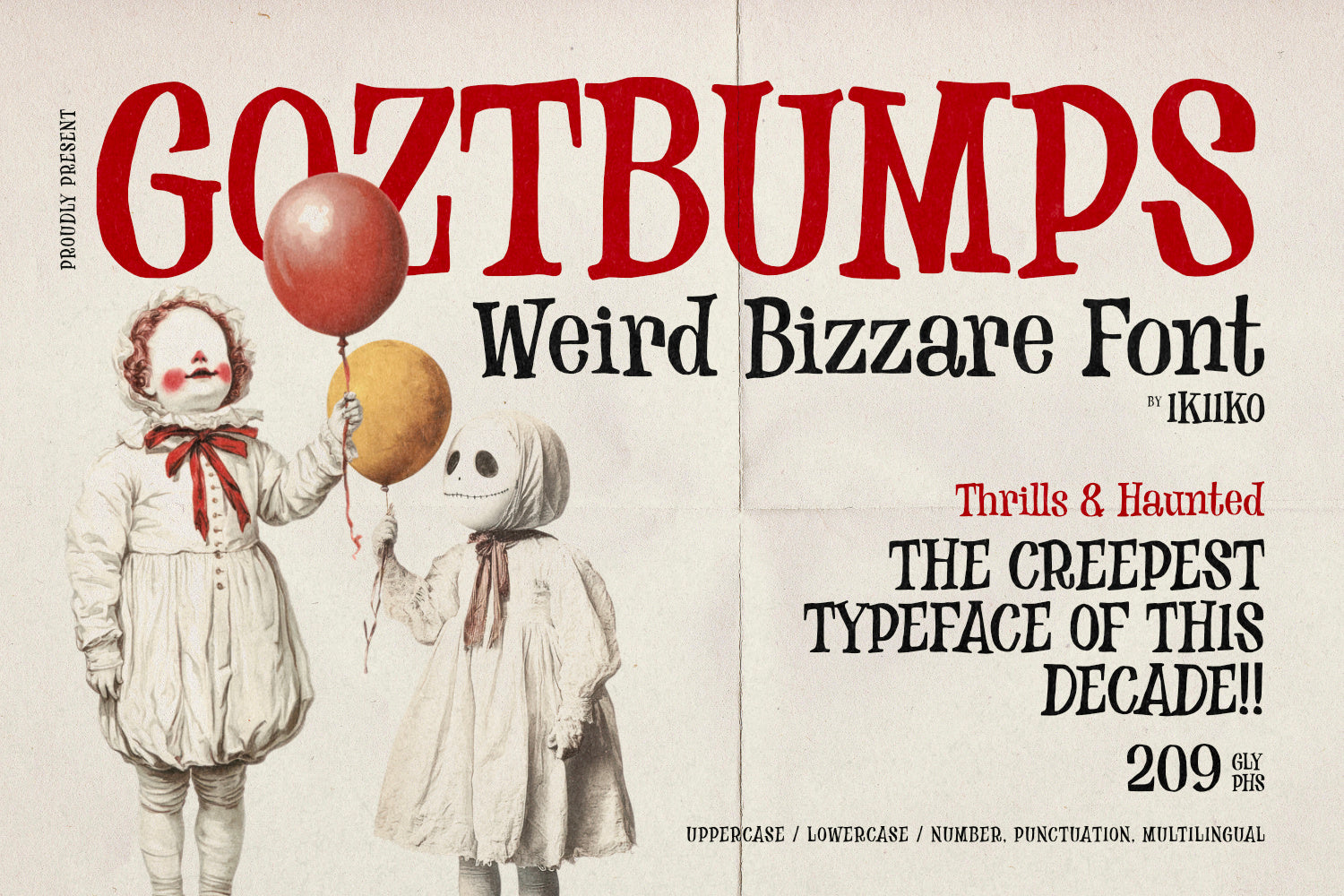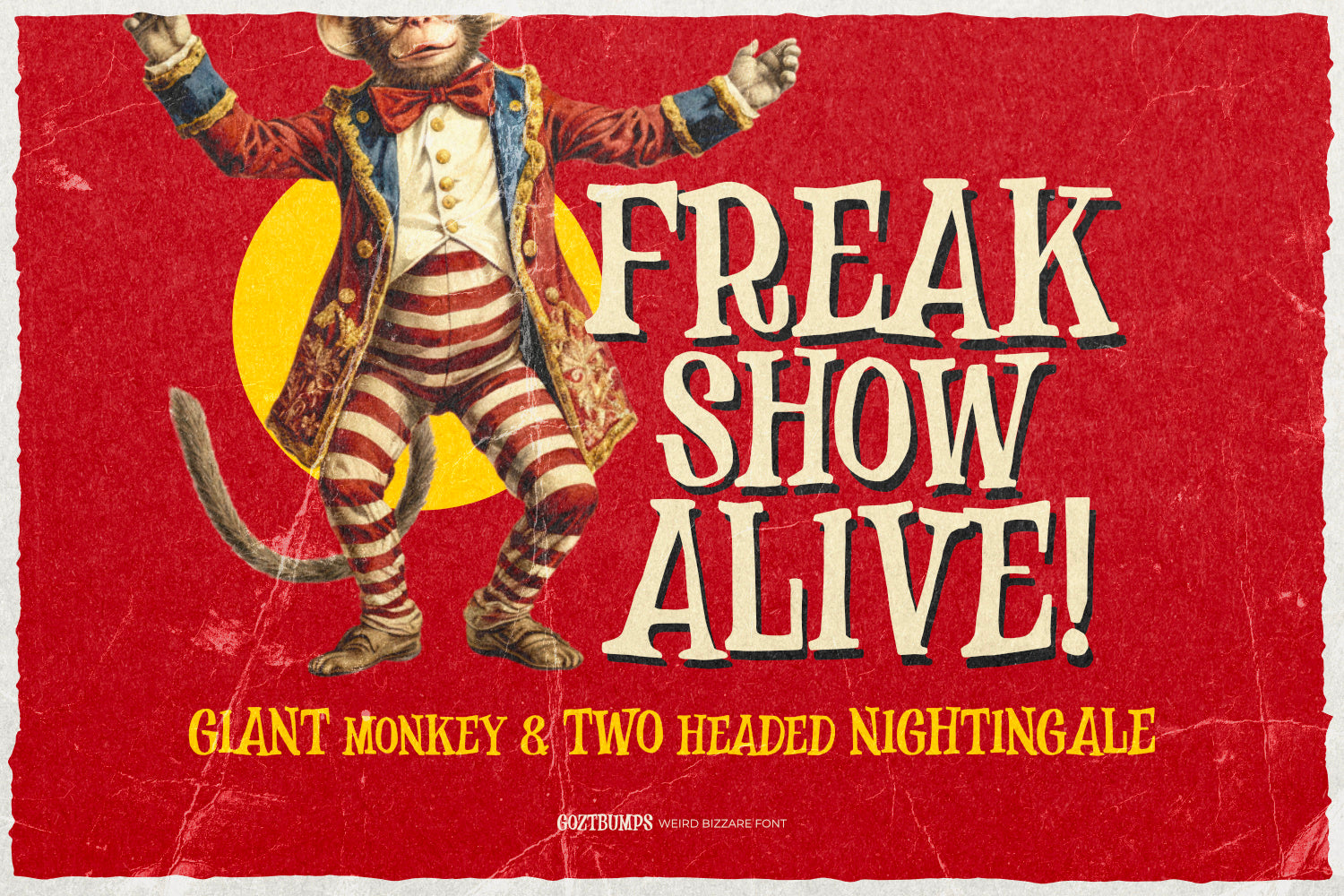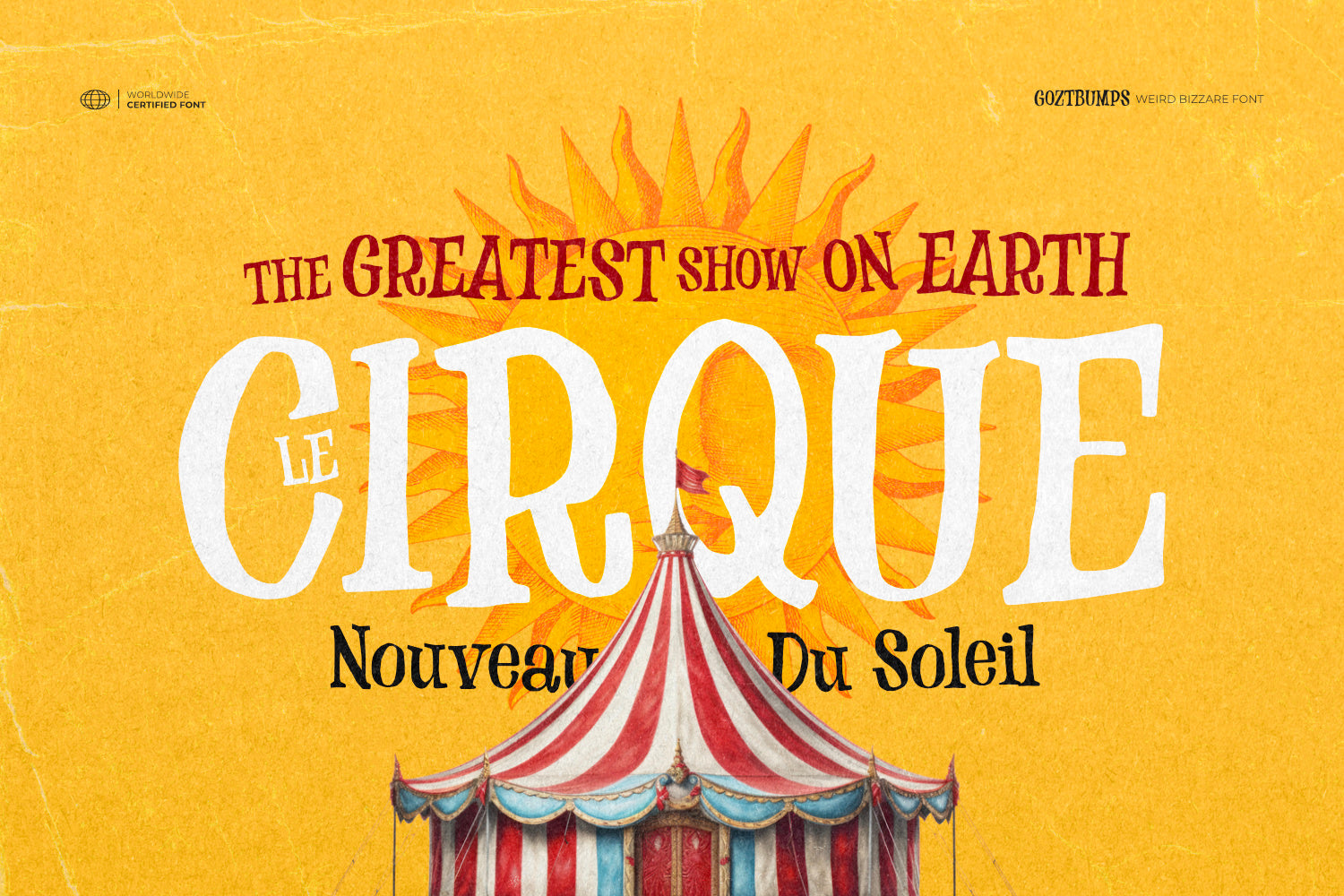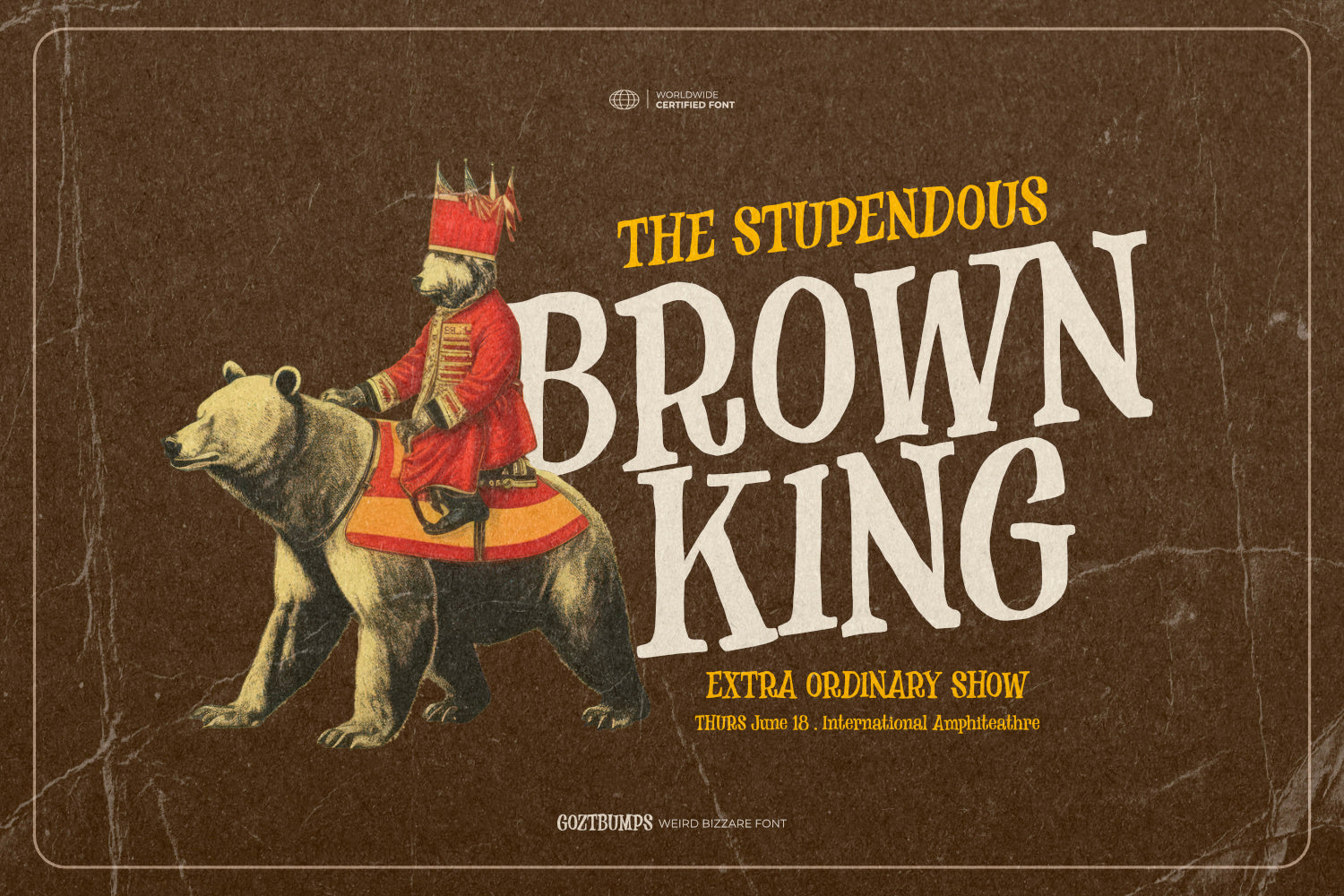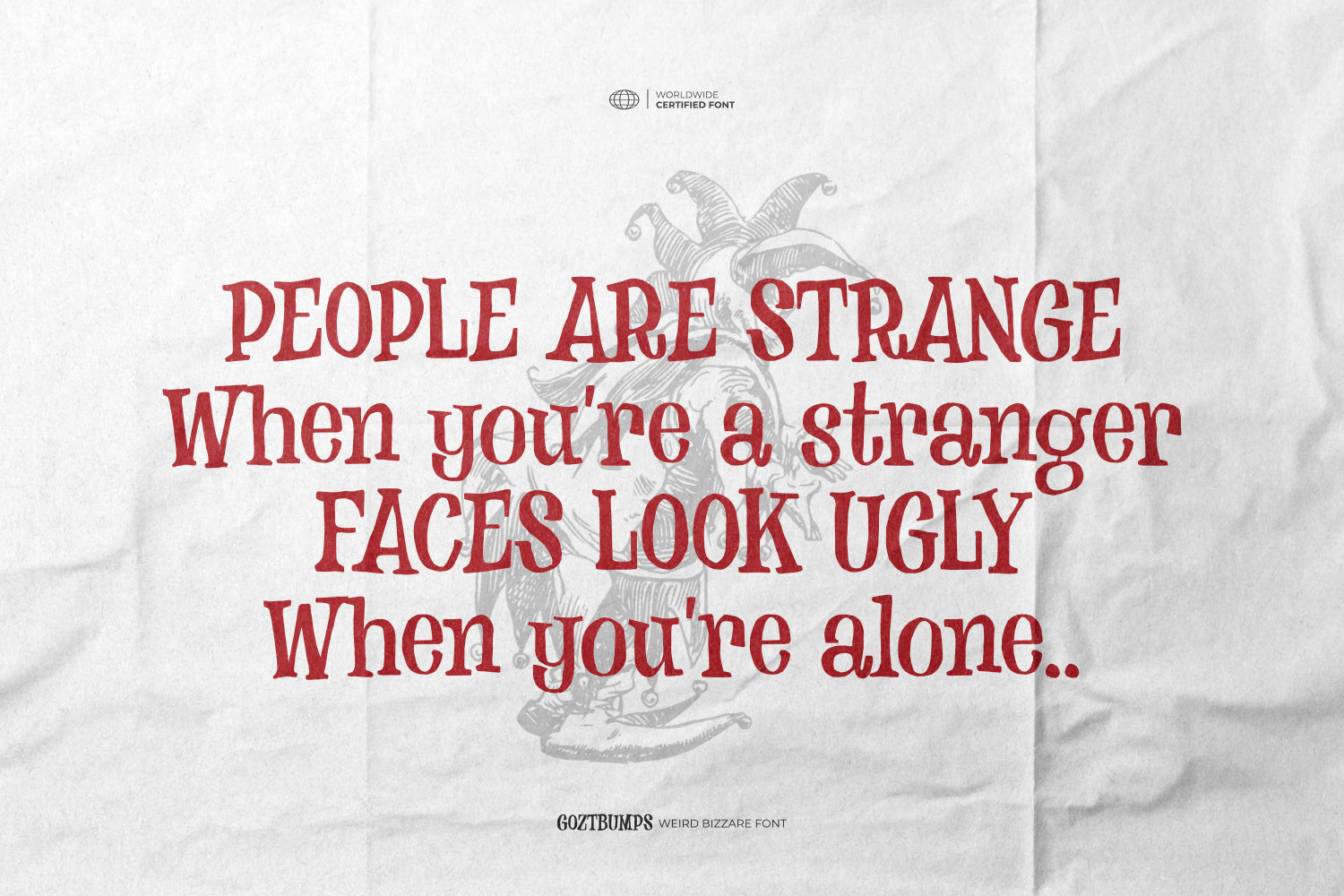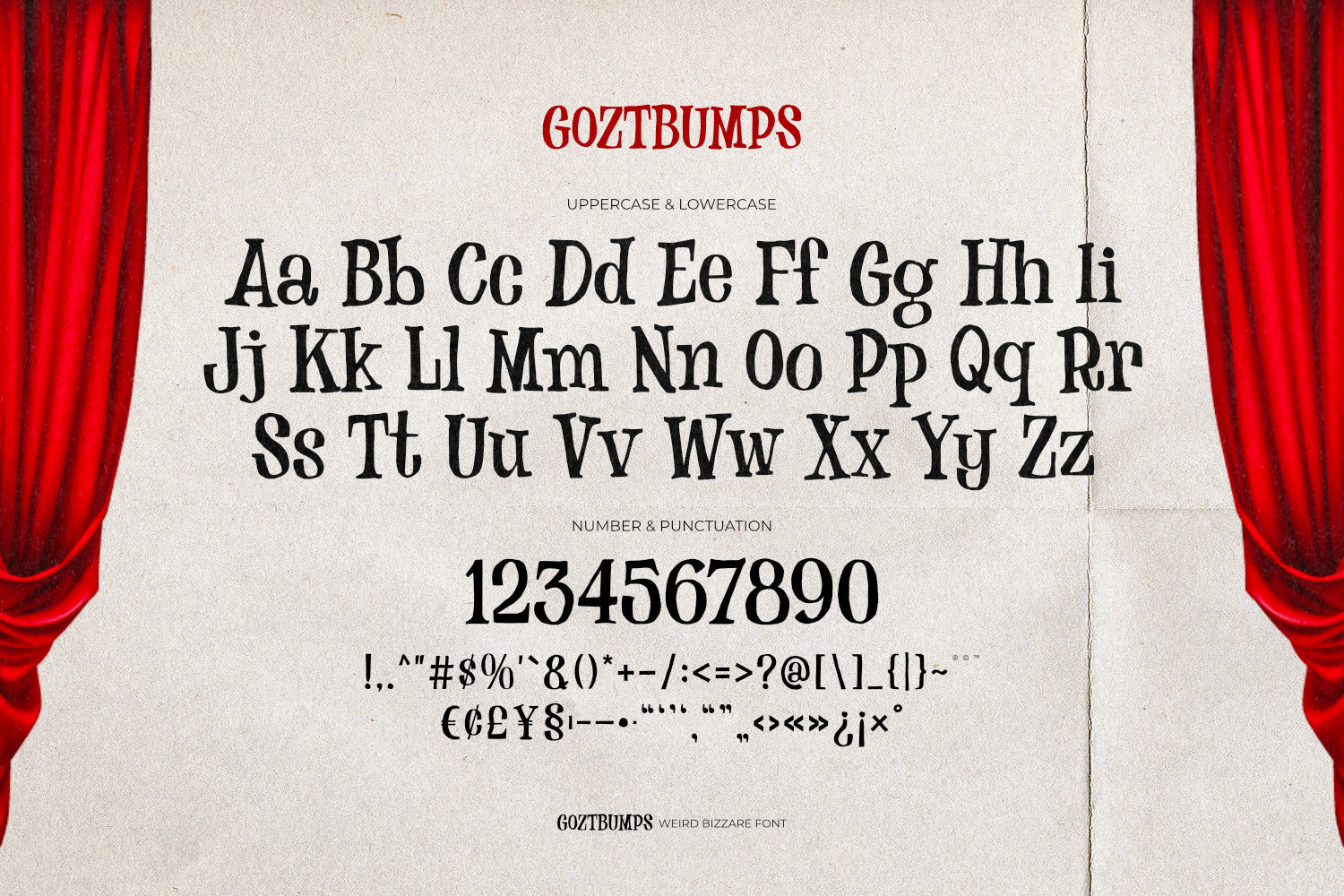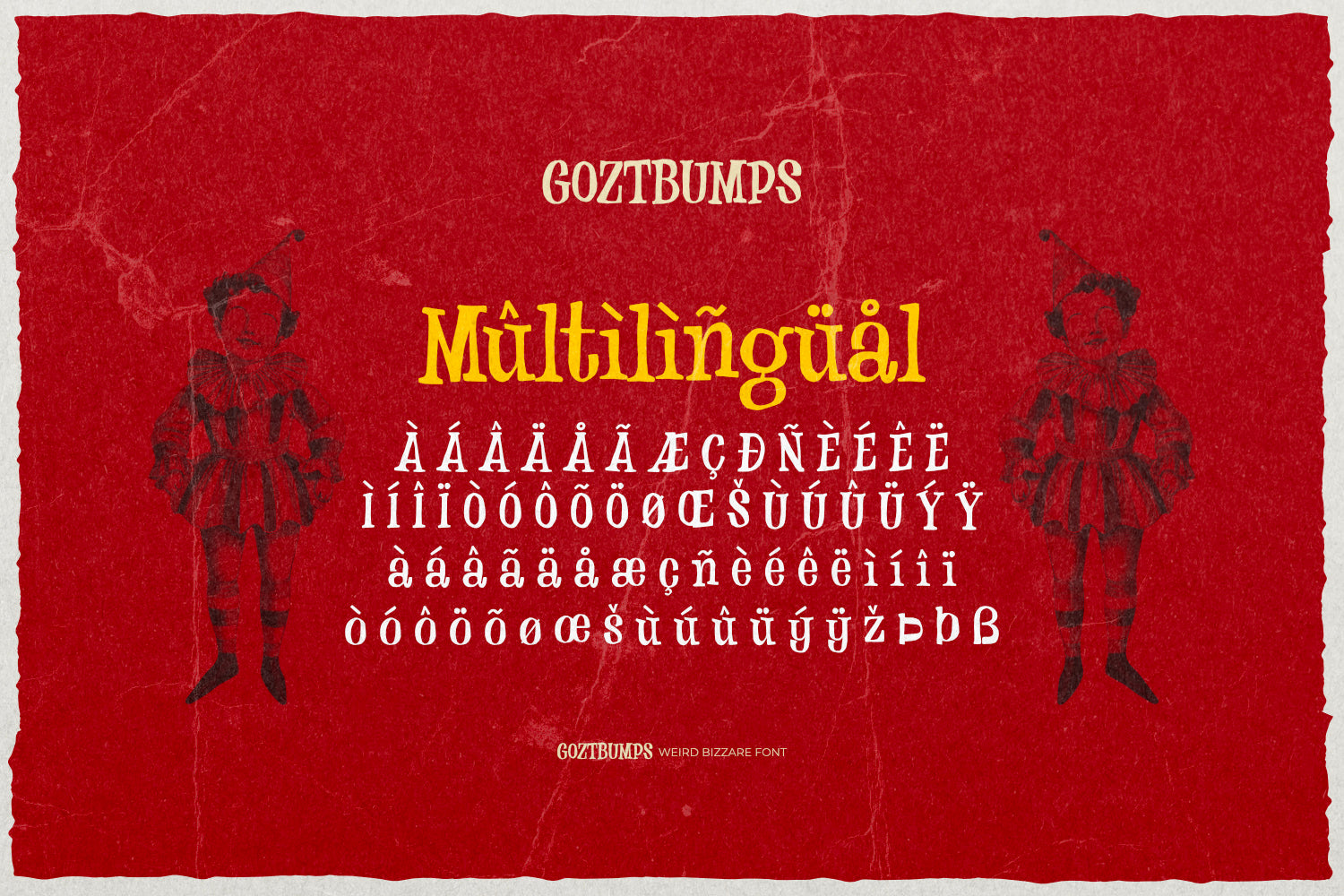
Proudly present Goztbumps - Weird Bizzare Font, created by ikiiko.
Step right into the twisted world of Goztbumps — a weirdo display font that’s dripping in vintage vibes, bizarre curves, and strange energy. Inspired by midnight carnivals, magnificent freak shows, and the wild chaos of freaky posters, Goztbumps brings nightmare-fueled nostalgia into modern design.
This font isn’t just weird — it’s weird with style. Expect jagged lines, crooked charm, and circus-gone-wrong aesthetics. Perfect for designs that dare to be different — from horror merch, poster art, weirdo visuals, to anything needing a creepy-yet-hip flair.
Embrace the bizarre. Celebrate the strange. Welcome to the freakshow!!